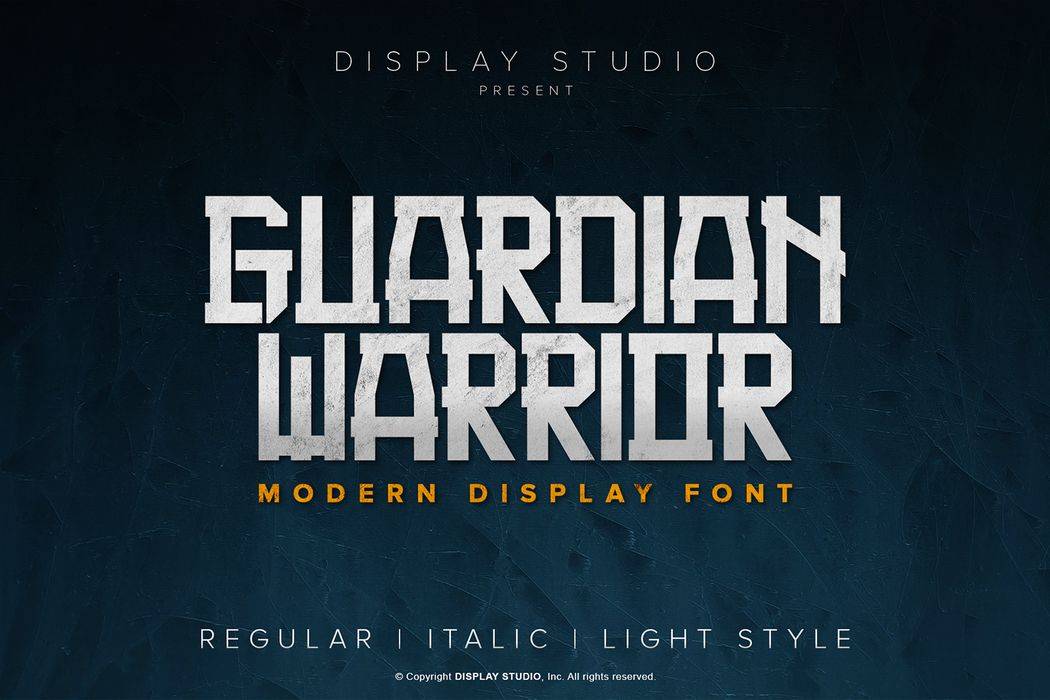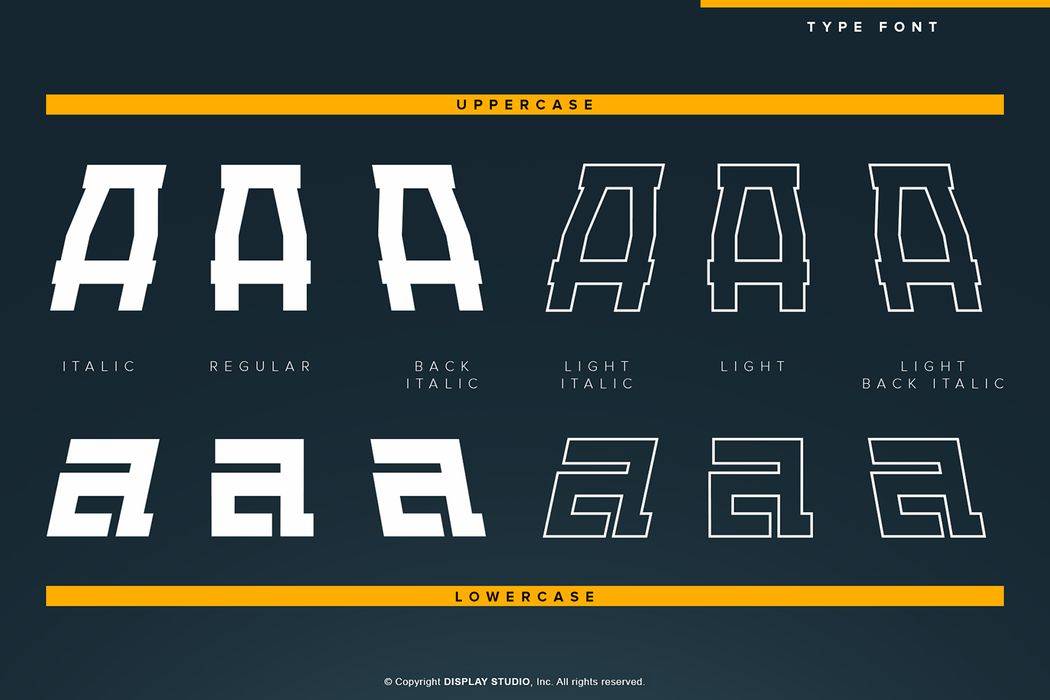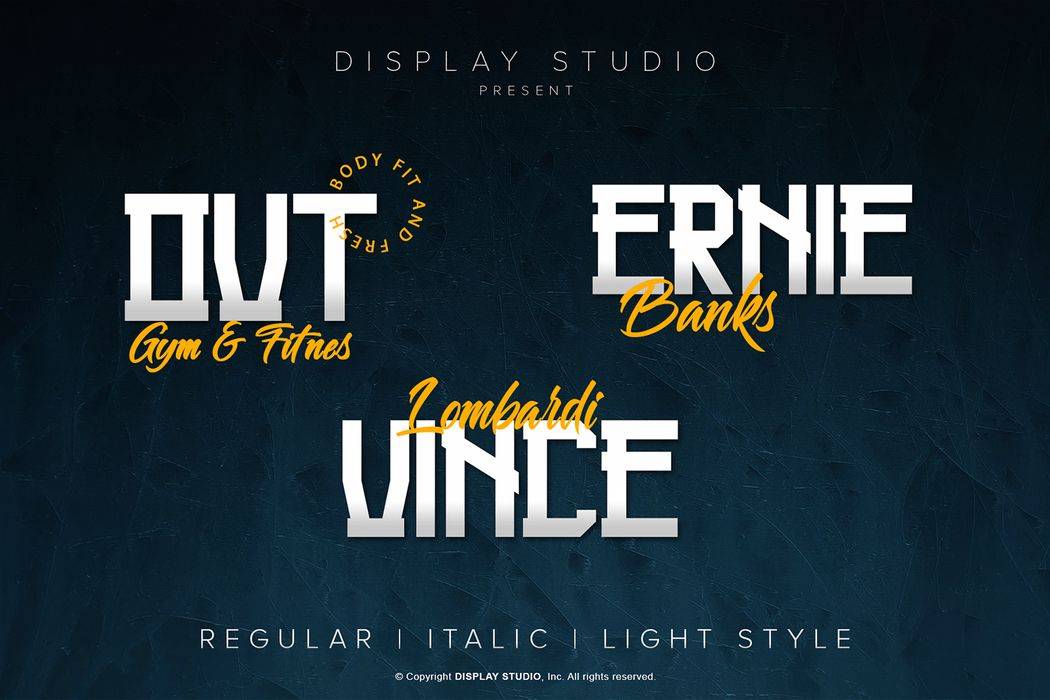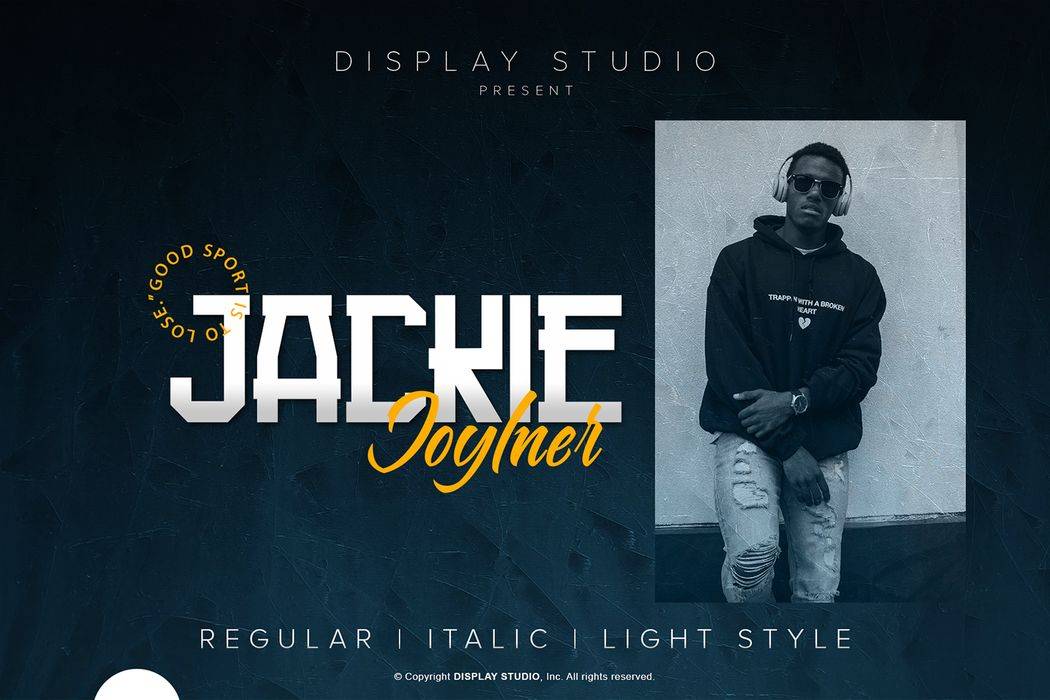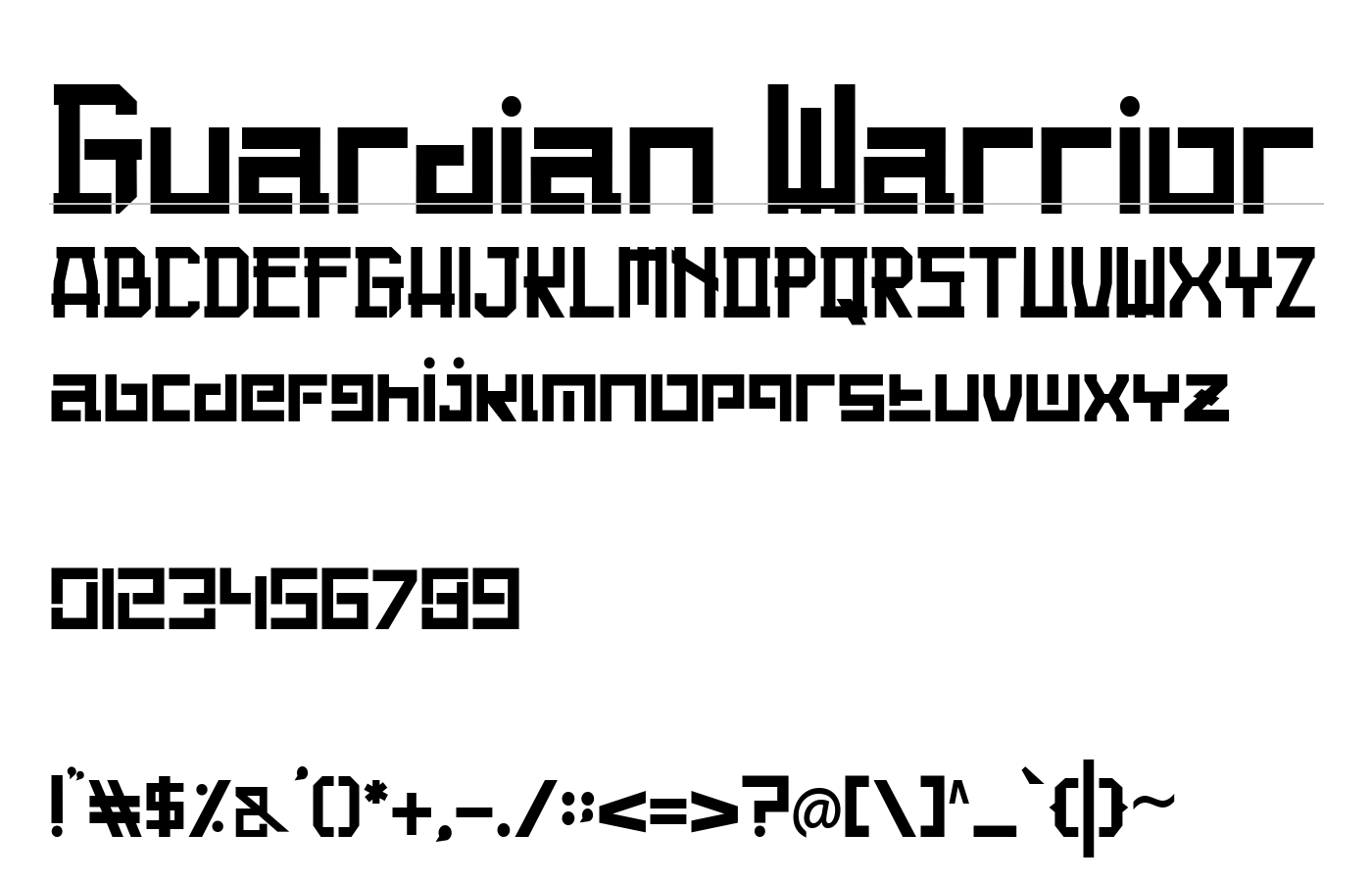
Guardian Warrior is a bold, geometric sans serif font with a strong, angular design that conveys power and modernity. Its consistent stroke weight, squared shapes, and slightly condensed letterforms give it a commanding and technical feel, making it ideal for headlines, logos, and branding that seek a futuristic or industrial edge. This font works well in contexts where a confident, assertive presence is needed, such as gaming, technology, or sports-related designs.
Guardian Warrior Font
About Guardian Warrior Font